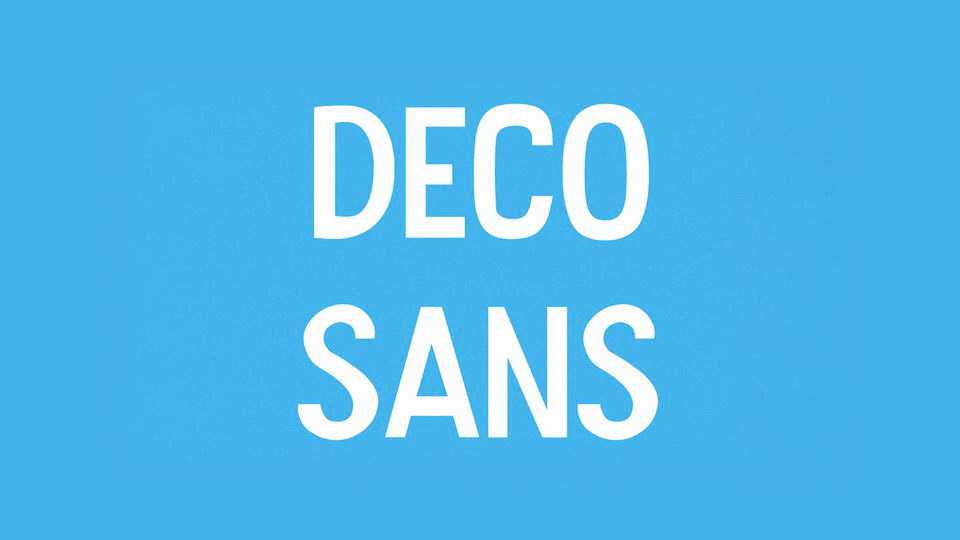
Download Deco Sans font, a simple and fun display typeface. Deco Sans font is perfect for posters, crafts, quotes and short messages, t-shirt prints, kids designs, games and more.